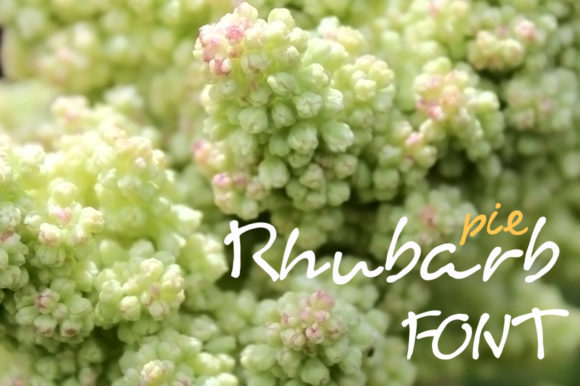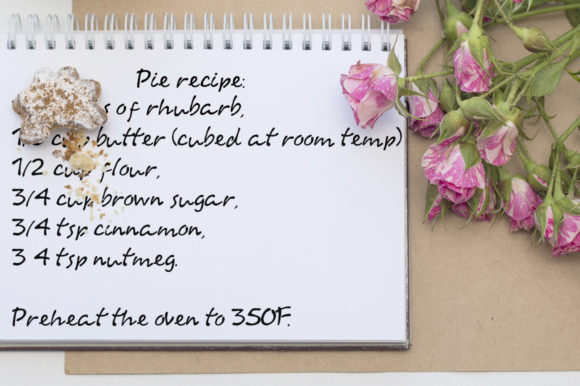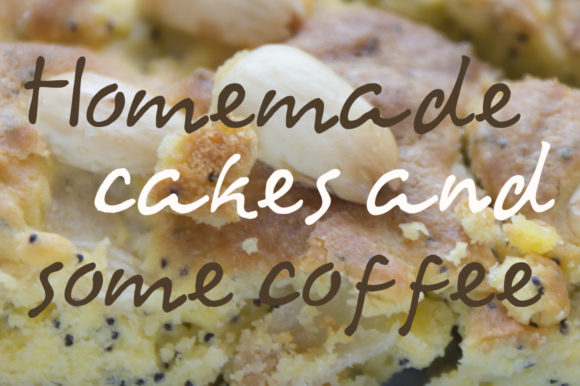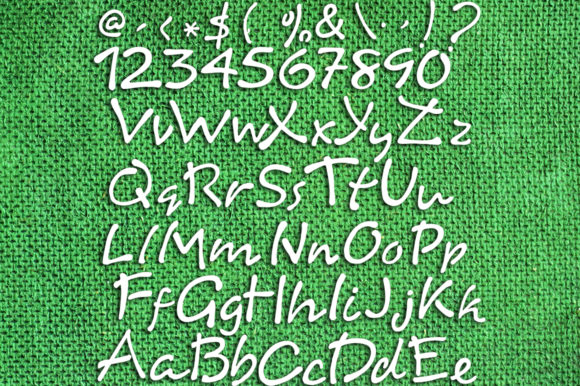
Rhubarb Pie Font
About Rhubarb Pie Font
Rhubarb Pie is a whimsical and quirky handwritten font. Whether you’re using it for crafting, digital designing, presentations or greeting cards making, it’s perfect!